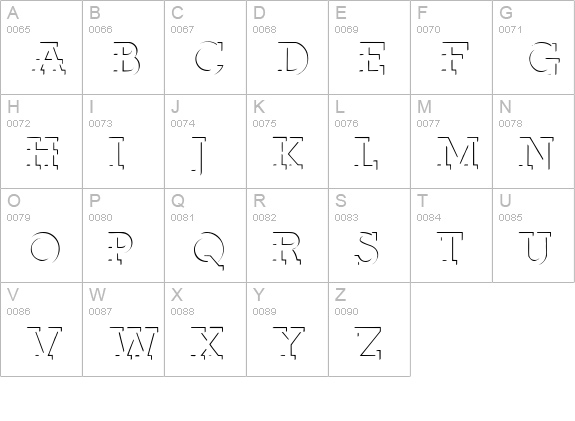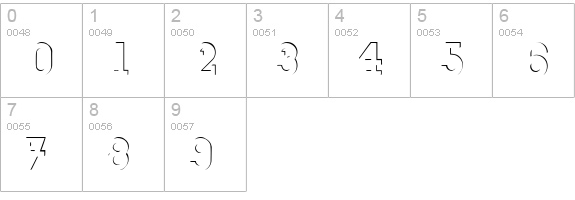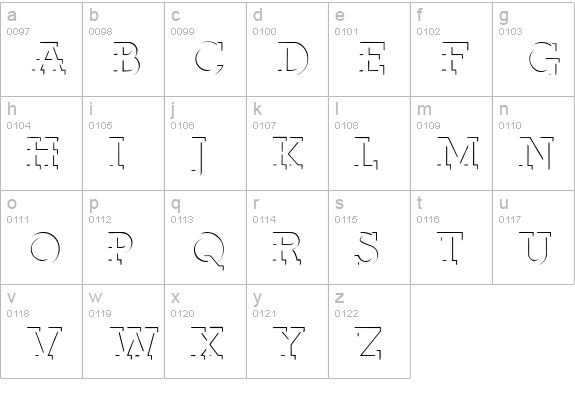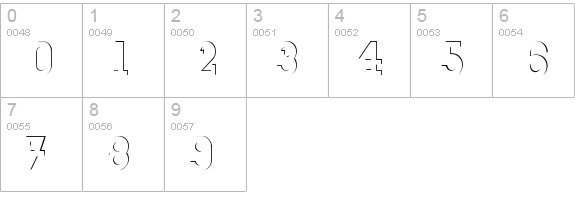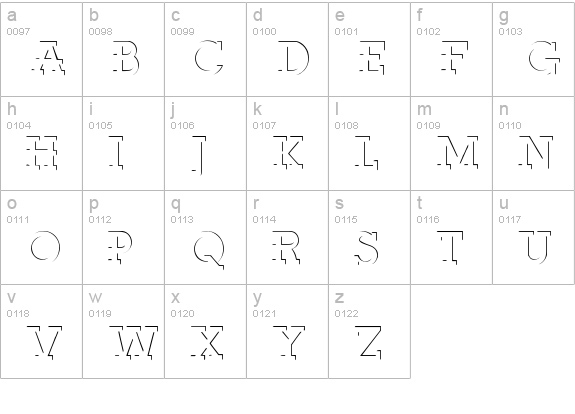
Fab Deco SSi Font Details
Fab Deco SSi is a stunning and versatile font that effortlessly captures the essence of the Art Deco era. With its sleek lines, geometric shapes, and elegant curves, this font exudes a sense of timeless sophistication. Whether you're designing a logo, creating a poster, or crafting a vintage-inspired website, Fab Deco SSi is the perfect choice to add a touch of glamour and nostalgia. This font's distinct characters are meticulously crafted, allowing for seamless readability while maintaining a distinct sense of style. The letters are bold and well-defined, making them eye-catching and visually appealing. Fab Deco SSi's smooth curves and sharp edges create a harmonious balance, resulting in a font that is both visually striking and easy to read. One of the best features of Fab Deco SSi is that it is available for free. You can easily download this font at FontsMarket.com, where it is readily accessible to designers, artists, and enthusiasts alike. This means that you can add a touch of elegance and sophistication to your projects without breaking the bank. The versatility of Fab Deco SSi knows no bounds. It can be used in a variety of design contexts, from invitations and cards to book covers and headlines. Its timeless appeal and classic aesthetic make it a go-to choice for those seeking a font that is both captivating and versatile. Whether you're designing for a modern project that needs a touch of vintage charm or creating something inspired by the glamorous Art Deco period, Fab Deco SSi is a font that will undoubtedly elevate your designs. Its free availability and exceptional quality make it an indispensable addition to any designer's toolkit. So go ahead and download Fab Deco SSi from FontsMarket.com, and let your creativity soar with this incredible font.